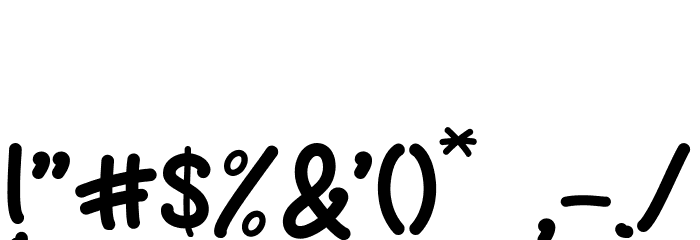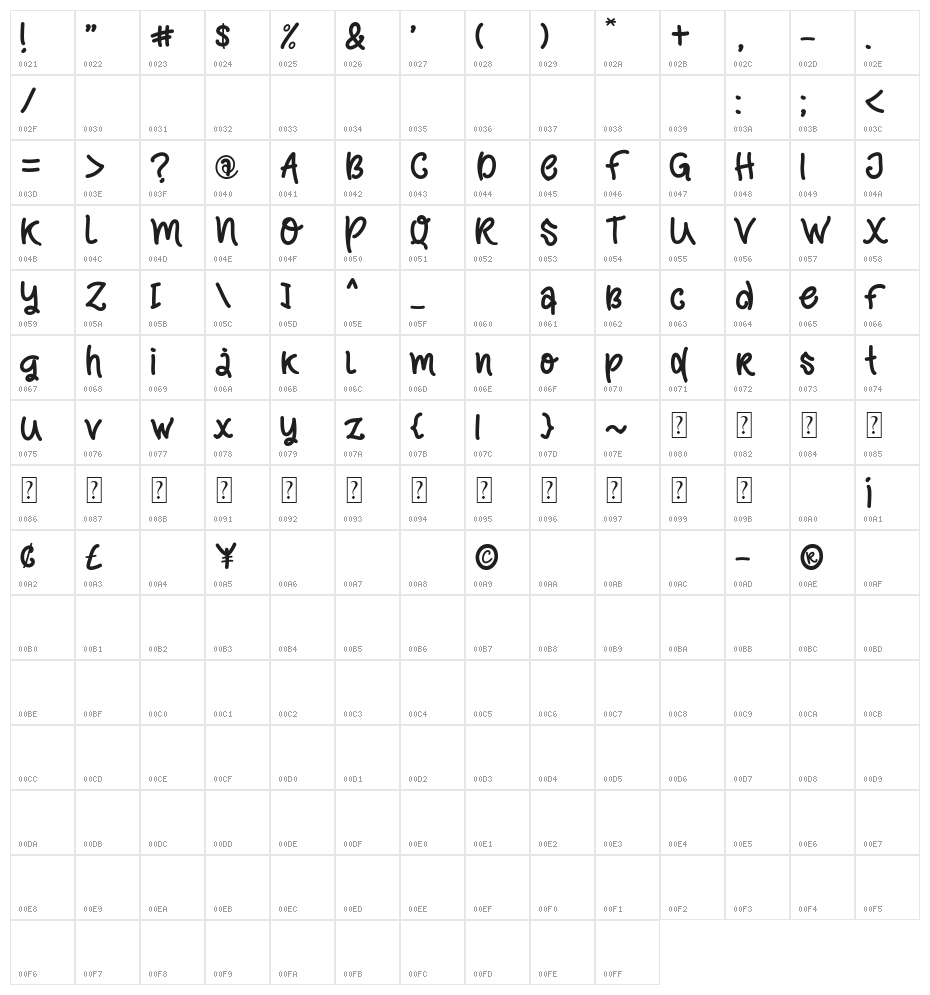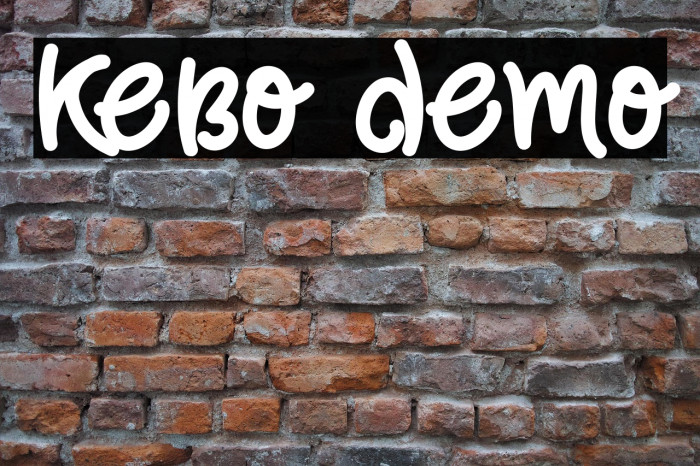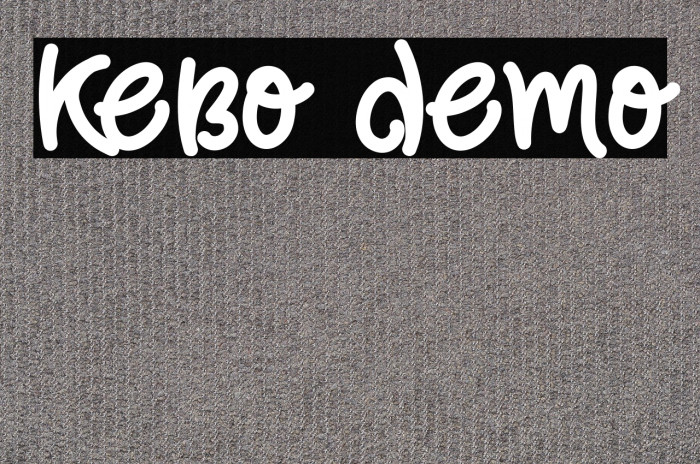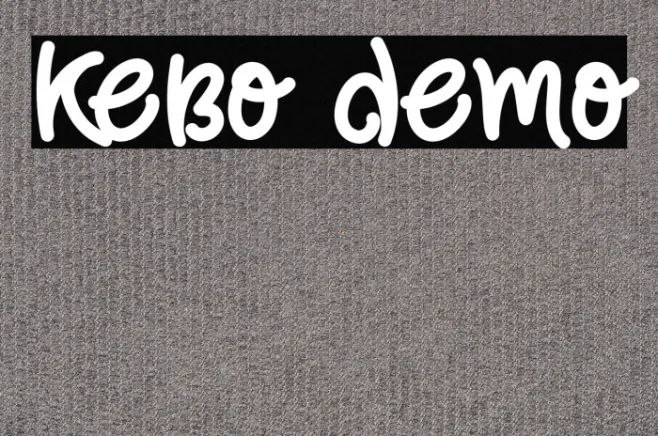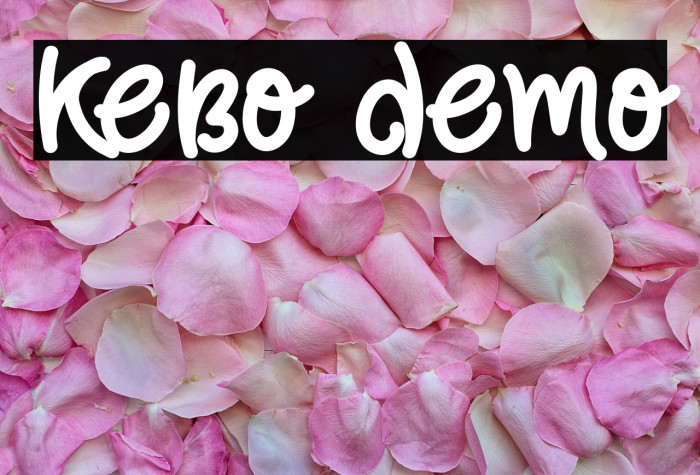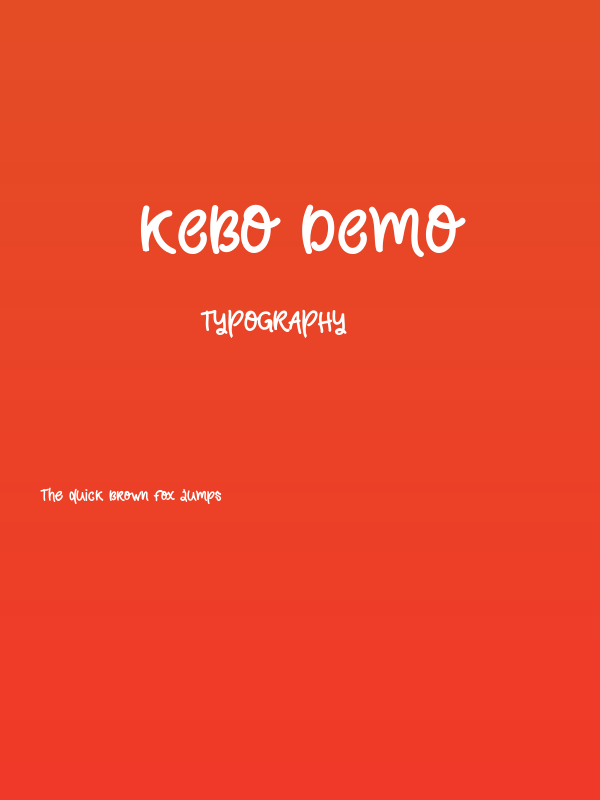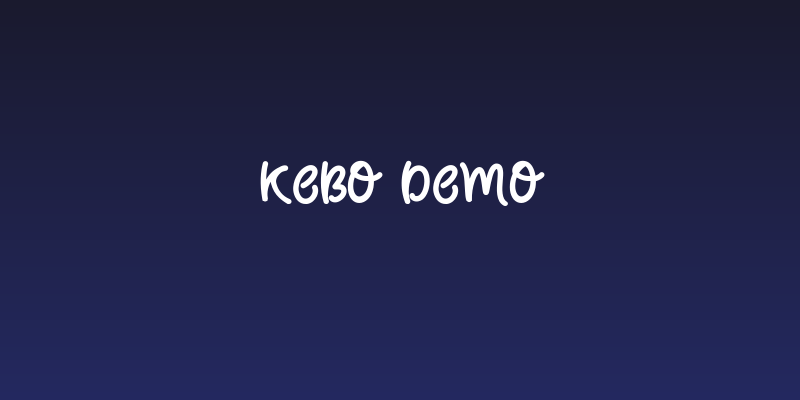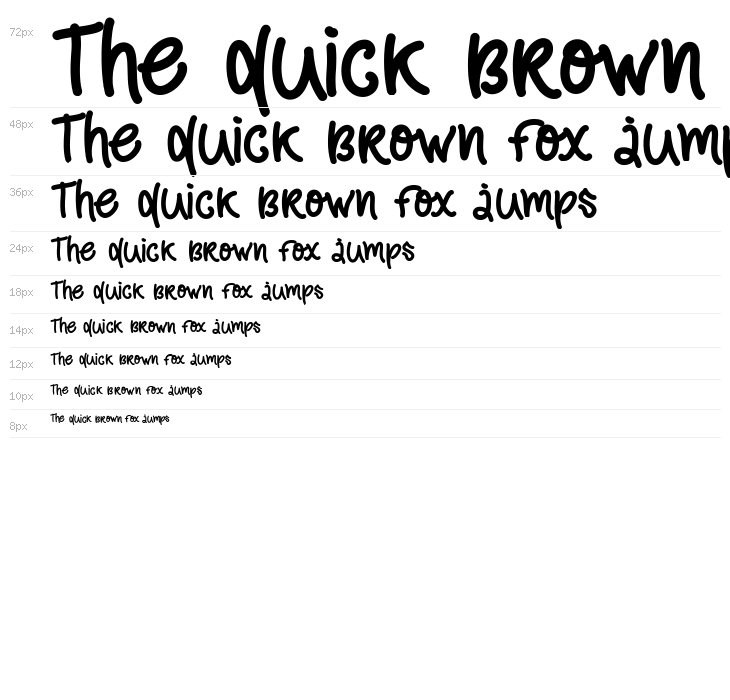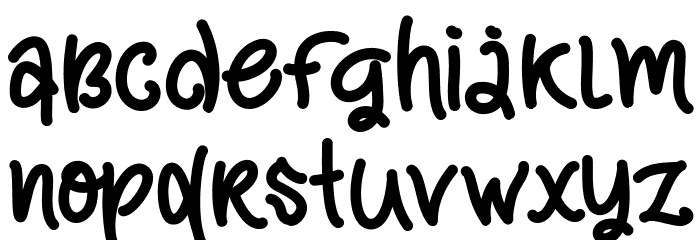
Kebo demo Font
This font features a playful and whimsical handwritten style, characterized by its bold and rounded letterforms. The uppercase and lowercase letters maintain a consistent flow, with smooth curves and a slightly irregular baseline that adds to its charm. The numerals and special characters follow the same playful aesthetic, making it suitable for creative and informal designs. The strokes are thick, providing a strong visual presence, while the overall appearance remains friendly and approachable.
| Proposed Projects | Ideal for children's books, greeting cards, playful branding, and creative posters. |